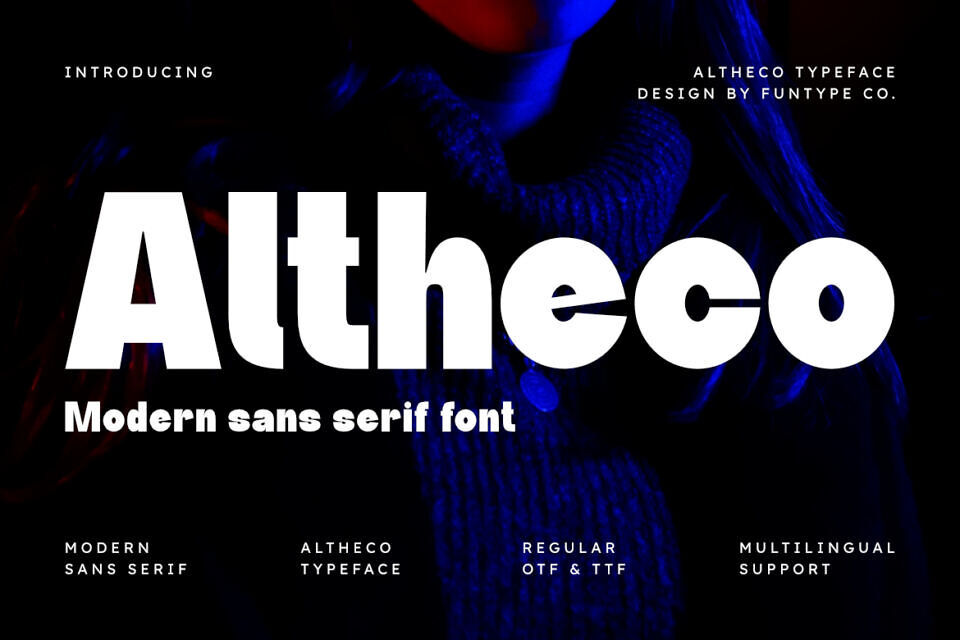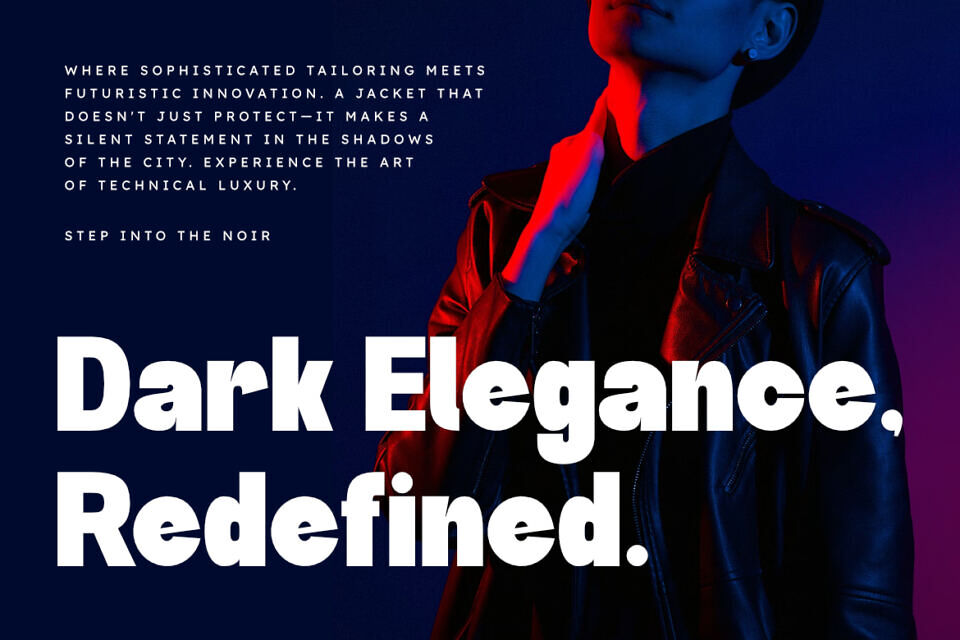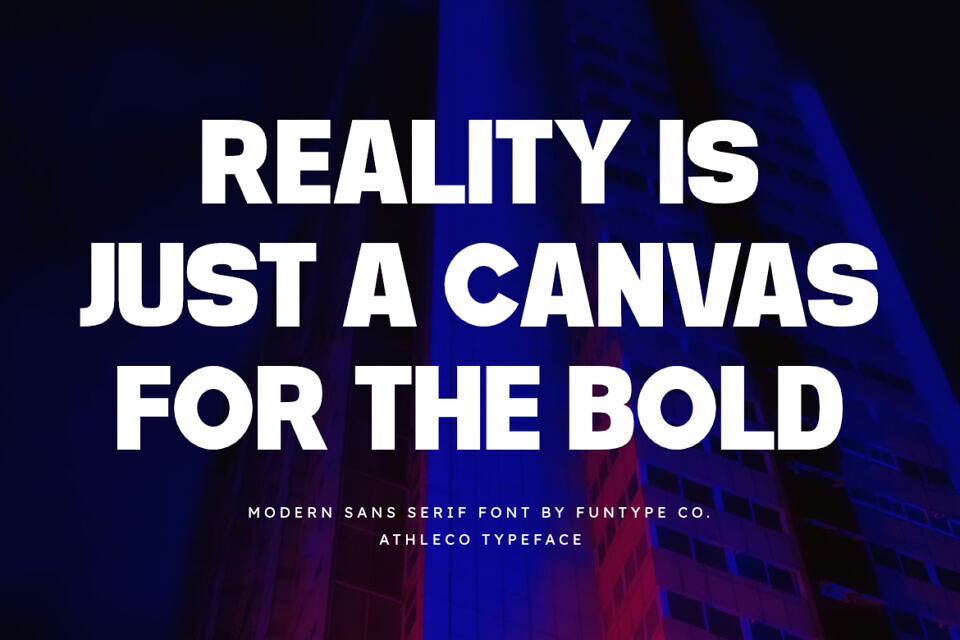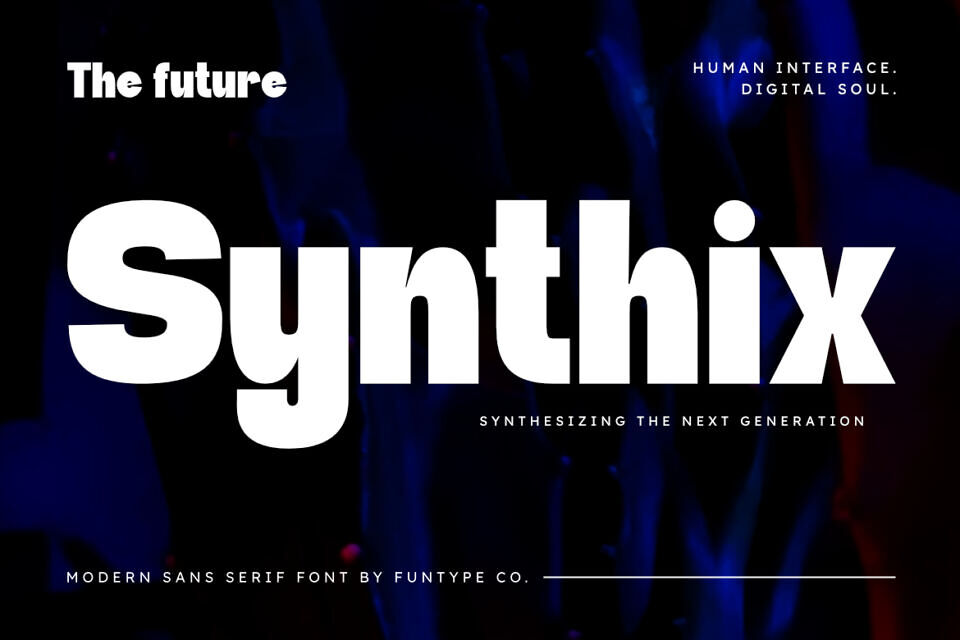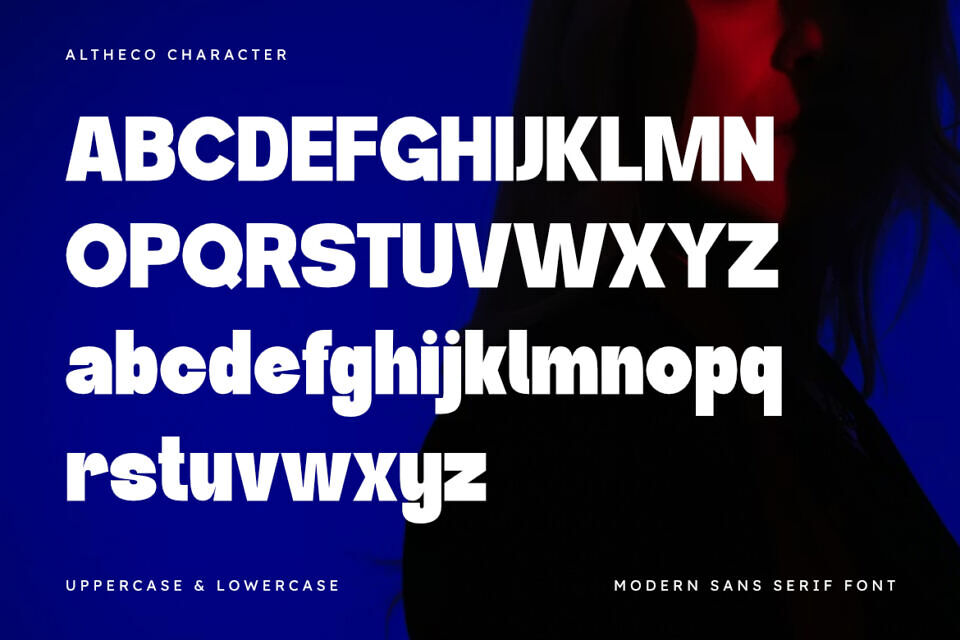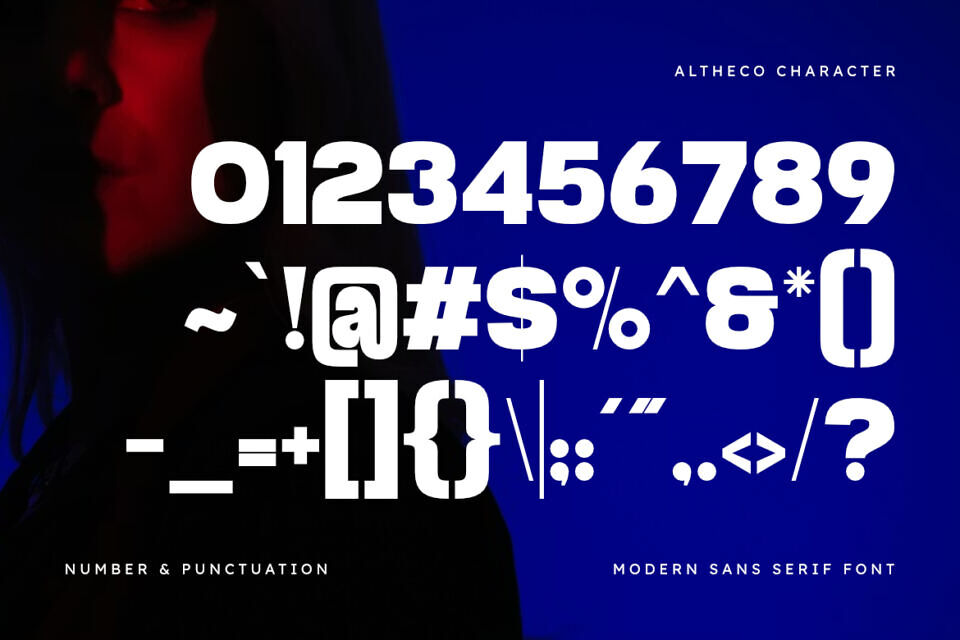
Altheco Font
Altheco is a contemporary and high-impact sans serif typeface designed for versatile visual branding and professional communication. Built with a solid structure and clean, balanced geometric lines, Altheco offers a modern aesthetic that brings a sense of confidence and clarity to any creative project.
This font is the ultimate solution for designers who need a reliable and stylish typeface for various applications. Whether you are crafting a corporate brand identity, a clean tech logo, or vibrant social media graphics, Altheco provides a seamless blend of modern flair and timeless readability. Its multilingual support makes it an excellent choice for global projects.